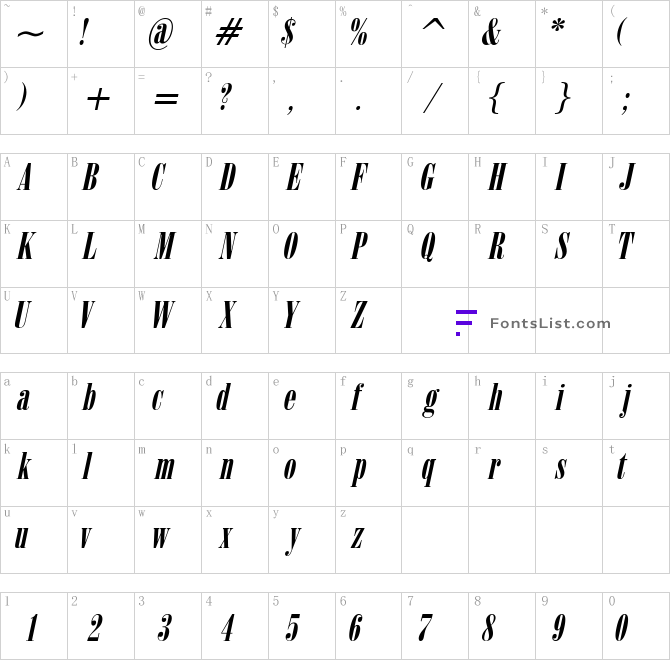
- Font Name:CapelliUltraCondensed
CapelliUltraCondensed-Italic.ttf is a very beautiful artistic font, CapelliUltraCondensed-Italic.ttf is widely used in the design and printing of various books and pictures,CapelliUltraCondensed-Italic.ttf has a strong visual impact,CapelliUltraCondensed-Italic.ttf is a commonly used font in newspapers, magazines and books, and is used in posters, e-commerce Poster design, store design, logo design, font design and other fields.CapelliUltraCondensed-Italic.